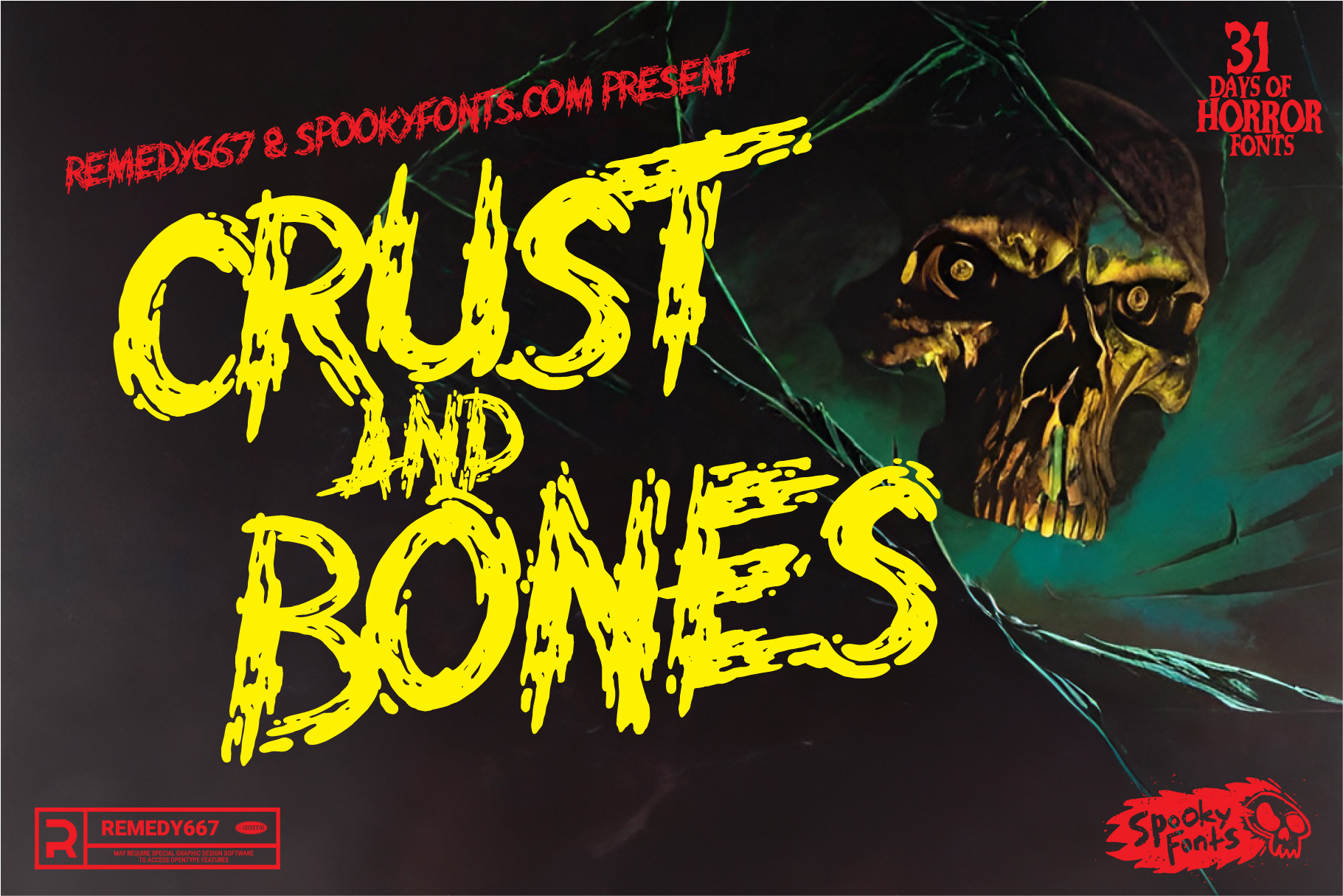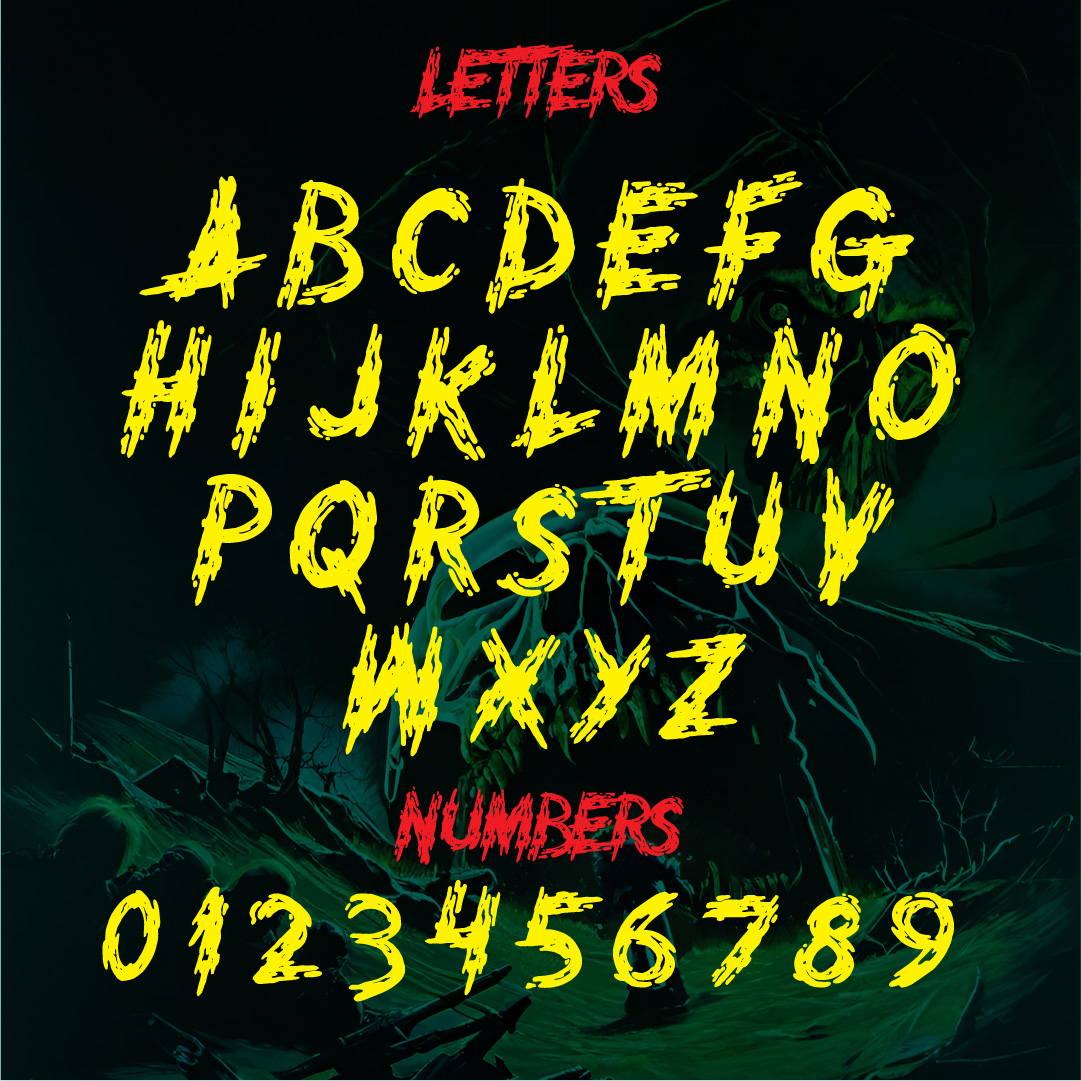
Calling all thrill-seekers and Halloween enthusiasts! Prepare to be enchanted by Crust and Bones, your go-to adventure for a spine-chilling experience like no other. With its bold and eerie typeface, this hauntingly captivating product will transport you into the depths of darkness where ghouls and ghosts await.
Dare to enter a world filled with heart-racing excitement as you embark on hair-raising adventures that will send shivers down your spine. The strikingly sinister design of Crust and Bones captures the essence of Halloween, evoking an unparalleled sense of mystery and intrigue. Immerse yourself in the macabre atmosphere as you explore haunted houses, navigate treacherous mazes, and encounter ghastly creatures lurking around every corner.
With Crust and Bones at your disposal, indulge in thrilling escapades that are sure to keep even the bravest souls on their toes. The combination of its adventurous nature and visually captivating typography allows for an immersive experience that leaves a lasting impression. Unleash your inner thrill-seeker as you uncover hidden secrets, solve perplexing puzzles, and unravel tales of horror. Don’t miss out on this devilishly delightful opportunity to immerse yourself in the twisted world of Crust & Bones –